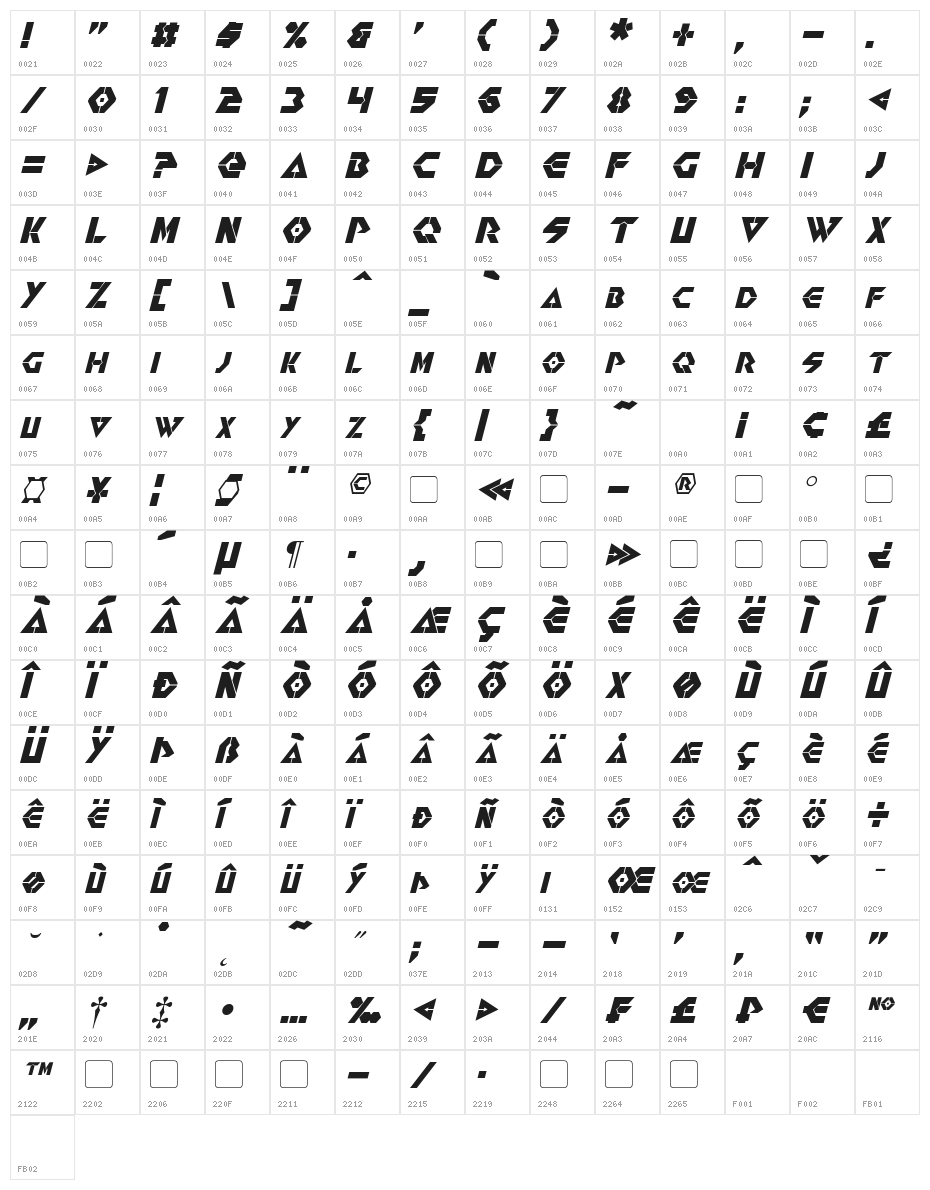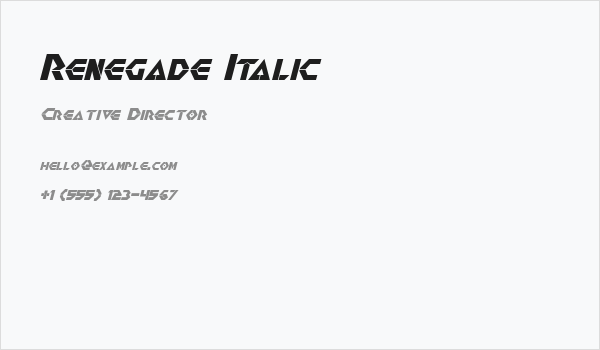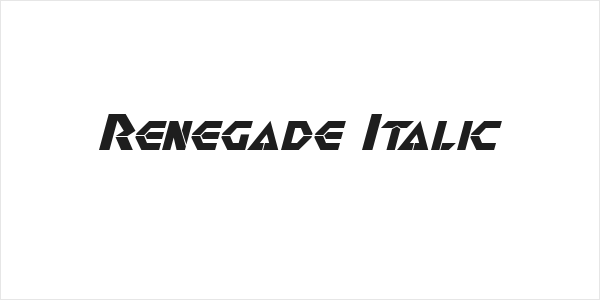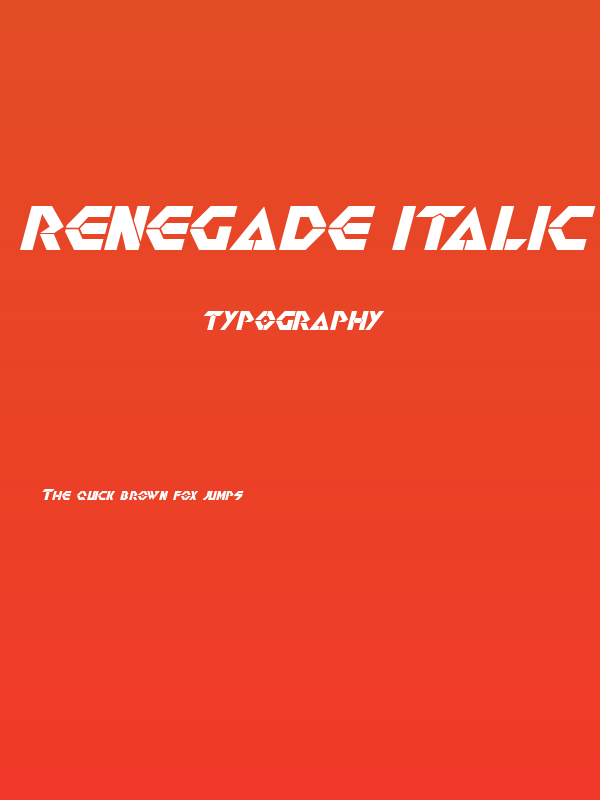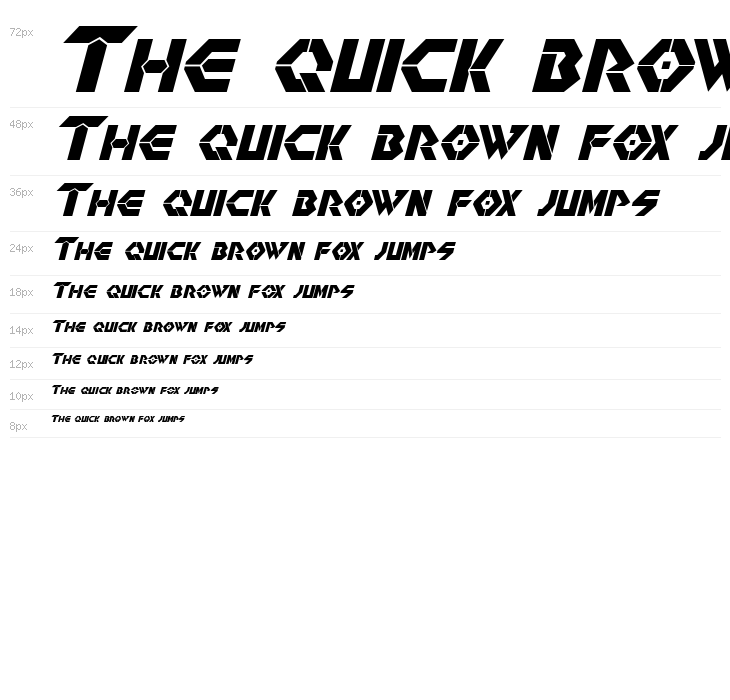
Renegade Italic Font
Renegade Italic Description
This font features a bold, geometric design with sharp angles and a futuristic aesthetic. The characters are constructed with a series of straight lines and angular cuts, creating a dynamic and edgy appearance. The uppercase and lowercase letters maintain a consistent style, with each character exhibiting a unique, fragmented look. The numbers and special characters follow the same design principles, ensuring a cohesive visual theme throughout. The font's boldness and distinctive style make it ideal for projects that require a modern and striking visual impact.
| Overall Style | Futuristic, Edgy |
| Proposed Projects | Ideal for sci-fi themed posters, video game titles, branding for tech companies, and any project requiring a modern, edgy look. |